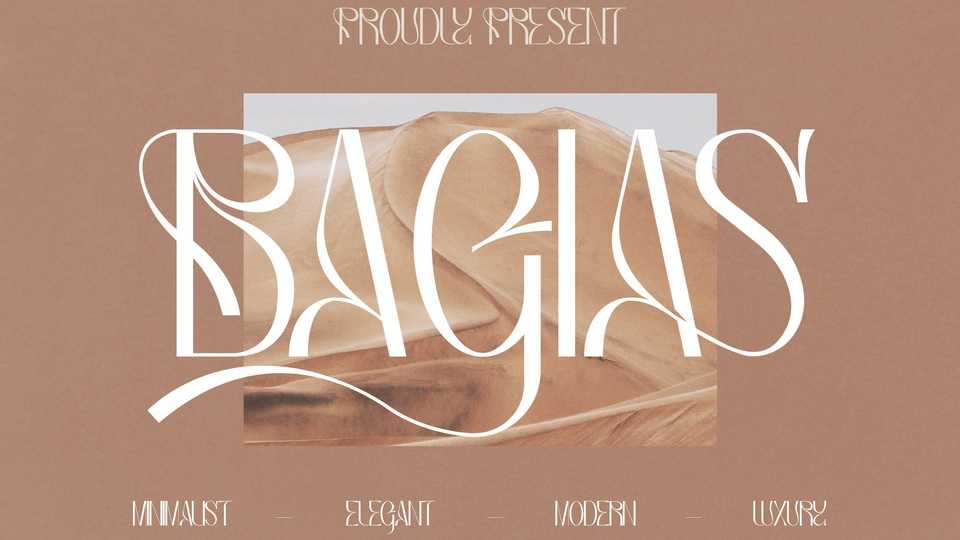
Download Bagias font, a modern display typeface with its own unique personality. Bagias font is perfect for elegant and luxurious logos, fashion brands, magazine covers, clothes, lettering, headlines and so on.